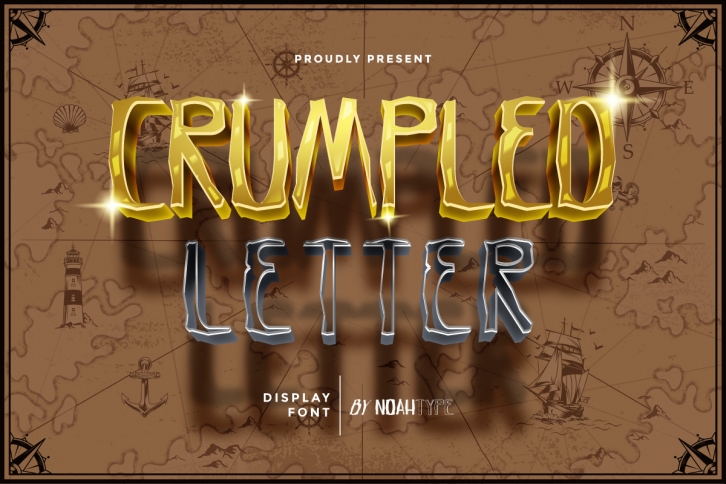
Crumpled Letter is a unique display font with five great styles. Inspired by the vintage classic lettering, this font will work for events, weddings, branding, artist, make-up, and other fun things. The font will also work for outdoor, fashion products, camping, adventure style. The font is perfect for many projects, headlines, logos, posters, titles, and products.